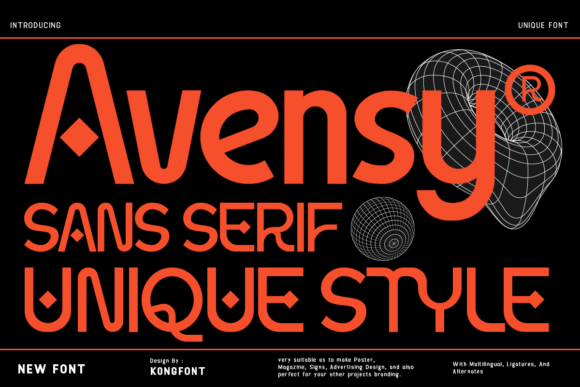
Unlocking the Power of Avensy Font: Elevate Your Designs with Ease
Remember that moment when you’re brainstorming ideas for a new project and you finally land on the perfect concept? The rush of excitement and the thrill of bringing your vision to life – that’s what happens when you have the right tools at your fingertips. For designers, finding the perfect font can be the difference between a mediocre design and a truly stunning one. That’s where the Avensy Font comes in – a sleek and modern typeface designed to elevate your designs with its refined simplicity.
The Avensy Font is more than just a font; it’s a versatile solution for designers looking to create a lasting impression. With its clean, crisp lines and contemporary aesthetic, it’s perfect for branding, logos, packaging, editorial layouts, and web design. Whether you’re aiming for a bold statement or subtle elegance, Avensy provides the perfect balance of style and functionality, making it a valuable addition to your font collection.
Avensy Font Key Features
- Font Family: Avensy Font is a sans-serif font family with a modern and clean design.
- Font Sizes: Avensy Font is available in 8 font weights, ranging from Light to Extra Bold, with corresponding font sizes of 100-900.
- Unique Characteristics: Avensy Font features a unique geometric design with a subtle rounded edge, making it perfect for modern branding and digital design.
- Language Support: Avensy Font supports a wide range of languages, including Latin, Cyrillic, Greek, and many others, with over 200 glyphs.
Avensy Font Review
Overall, I’m quite impressed with the Avensy Font. It’s a beautiful, modern sans-serif typeface that works well in a variety of contexts. ✨
One of the things I like most about Avensy is its versatility. It’s suitable for both digital and print use, and it looks great at a range of font sizes. It’s also highly legible, making it a great choice for body text.
- Modern and sleek design
- Highly legible, making it great for body text
- Suitable for both digital and print use
- Works well at a range of font sizes
That being said, there are a few limitations to the Avensy Font. ✠️
- May not be suitable for formal or traditional designs
- Lacks some of the nuances and character of more ornate fonts
- Not as extensive a character set as some other fonts
Overall, I think the Avensy Font is a solid choice for designers looking for a modern, versatile sans-serif typeface. It’s not perfect, but it gets the job done, and it’s a lot of fun to work with.
The Avensy font is ideal for:
- Designing modern and minimalist logos
- Creating elegant and sophisticated typography
- Adding a touch of sophistication to business presentations
Alternatives to Avensy Font
1. Merriweather
Merriweather is a classic serif font that is suitable for body text, particularly in books, magazines, and newspapers. It has a timeless and elegant feel that works well for both print and digital media.
Merriweather is more traditional and formal compared to Avensy Font, which has a more modern and minimalist design. Merriweather is ideal for situations where a classic, sophisticated look is desired.
Lato is a modern sans-serif font that is suitable for headings and body text in digital media. It has a clean and minimalist design that works well for websites, apps, and other digital interfaces.
Lato is more minimalist and modern compared to Avensy Font, which has a more elegant and sophisticated design. Lato is ideal for situations where a clean and simple look is desired.
Open Sans is a modern sans-serif font that is suitable for body text in digital media. It has a clean and approachable design that works well for websites, apps, and other digital interfaces.